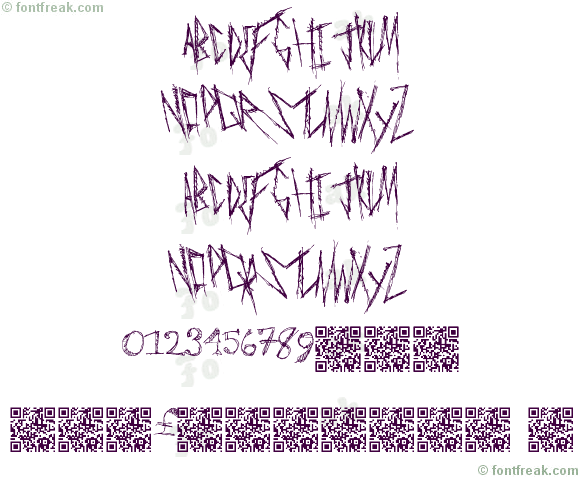
FreakyManor
FreakyManor by Xerographer Fonts is a distinctive display font that captures the essence of the macabre and the whimsical. Released in 2013, this freeware typeface features an eye-catching design characterized by jagged edges and a hand-drawn quality. The strokes vary in weight, creating a sense of movement and unpredictability that is both intriguing and visually arresting. The spacing is tight, enhancing the font’s bold presence while maintaining readability, making it suitable for various creative applications.
FreakyManor is perfect for a range of specific uses. It shines in designs for Halloween-themed events, where its eerie aesthetic can evoke a sense of mystery and fun. This font is also an excellent choice for movie posters, particularly in the horror genre, as it can effectively convey the unsettling atmosphere of a film. Additionally, it works well for promotional materials for haunted attractions or escape rooms, where grabbing the audience's attention is crucial. Small business owners looking to create a unique brand identity in niche markets, such as horror-themed merchandise or quirky cafes, will find this font to be a valuable asset.
The target audience for FreakyManor includes graphic designers seeking to make a bold statement in their projects, content creators aiming for a distinctive flair, and small business owners wanting to stand out in a crowded marketplace. The unique design of FreakyManor font free download not only adds a touch of personality to any project but also ensures that it will leave a lasting impression on viewers. Its combination of creativity and thematic relevance makes it a standout choice for those looking to infuse their work with a hint of the extraordinary.